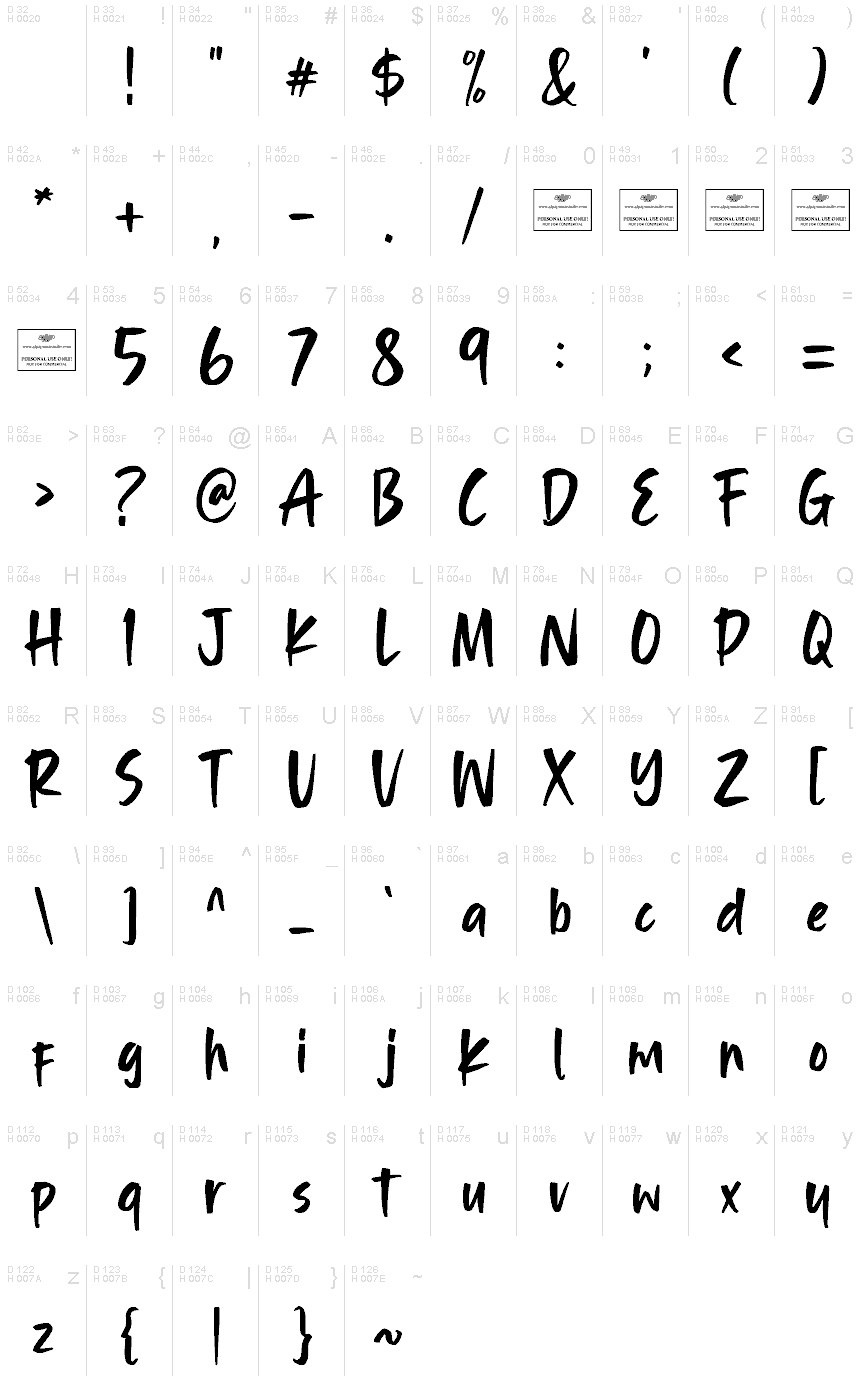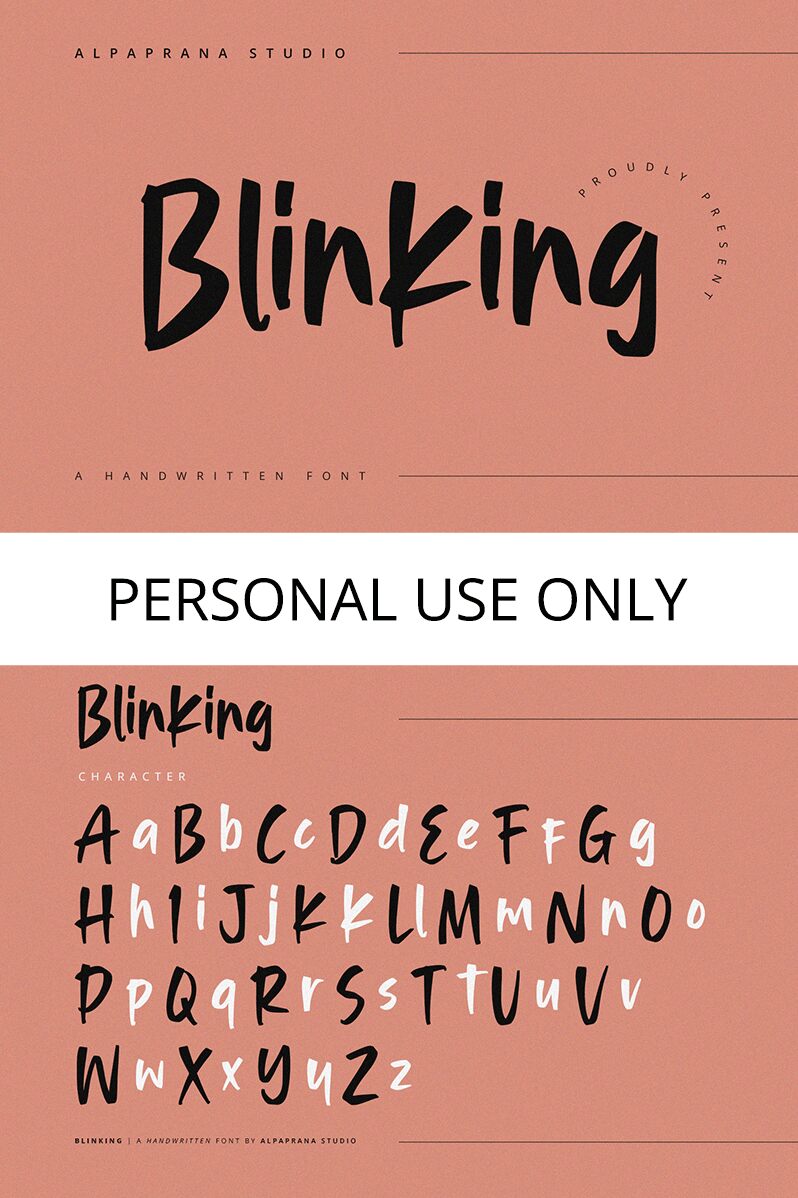
Blinking
Blinking font by Alpaprana Studio is a brush style font with a casual and expressive appearance. Its energetic strokes exhibit informality and spontaneity for an engaging touch which is perfect for catching attention. The creative style further evokes a sense of movement, allowing artists to develop more original project designs within few seconds.
The best contemporary uses of this free handwritten font would be in branding projects, advertisements, headlines or social media graphics. Another range of possibilities also include notebook covers, coffee cup mockups, inviting posters, business cards, portfolios and CVs. It’s well-suited for youthful audiences meaning its usage in fashion stores is welcome too!